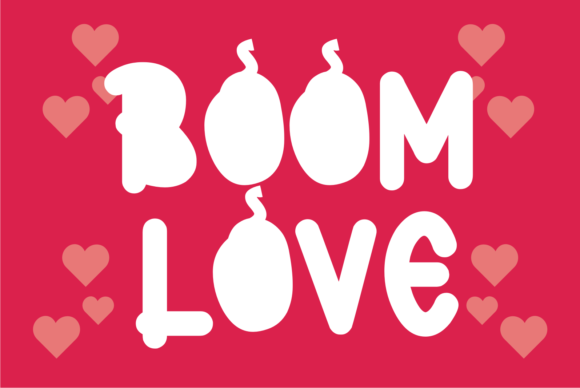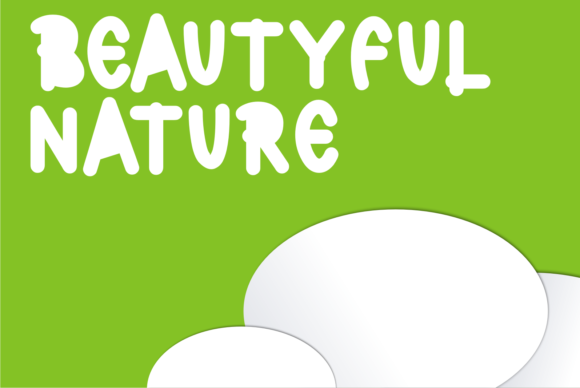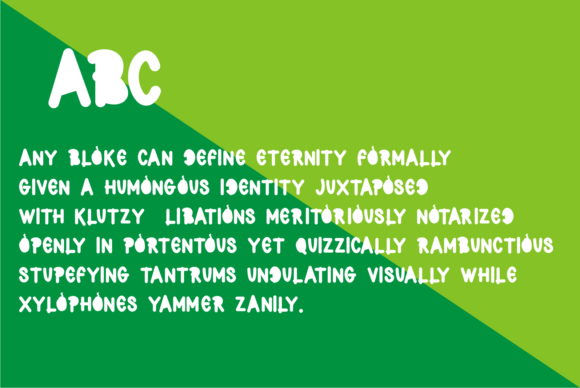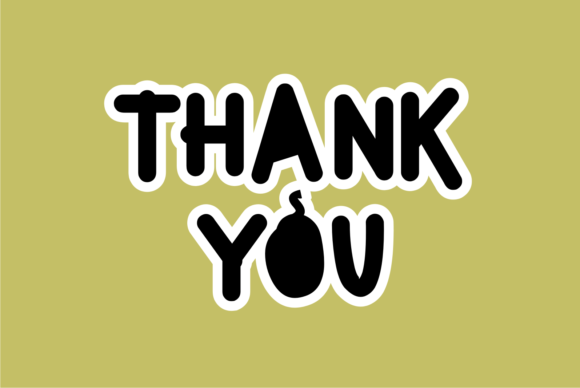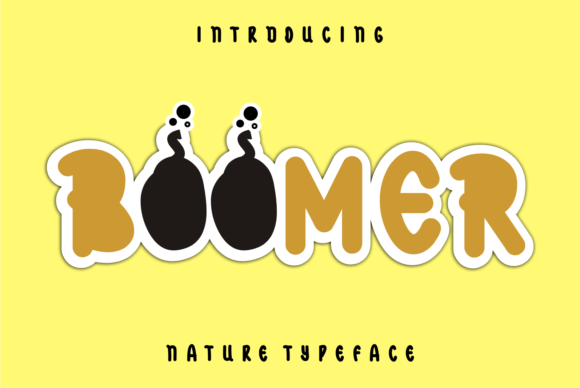
Introducing Boomer Font: The Ultimate Display Font for Creative Projects
Are you tired of using the same old fonts for your creative projects? Look no further! Boomer Font is here to revolutionize the way you approach design. This cool and trendy-looking display font is perfect for logos, badges, clothing, posters, and any other project that needs to stand out from the crowd.
What Makes Boomer Font So Special?
Boomer Font is a unique and stylish display font that is sure to make your creative ideas come alive. Its trendy design and cool aesthetic make it perfect for a wide range of projects, from logos and branding to posters and clothing. Whether you’re a designer, crafter, or DIY enthusiast, Boomer Font is the perfect addition to your font collection.
Key Features of Boomer Font
- Trendy Design: Boomer Font has a modern and stylish design that is sure to turn heads.
- Versatile: This font is perfect for a wide range of projects, from logos and branding to posters and clothing.
- Easy to Read: Despite its bold and edgy design, Boomer Font is easy to read and understand.
- High-Quality: This font is designed with high-quality and precision, ensuring that it looks great in any project.
How to Use Boomer Font in Your Projects
Boomer Font is incredibly easy to use and can be incorporated into a wide range of projects. Here are a few ideas to get you started:
- Logos and Branding: Use Boomer Font to create a unique and memorable logo for your business or brand.
- Posters and Flyers: Add a touch of style and sophistication to your posters and flyers with Boomer Font.
- Clothing and Apparel: Use Boomer Font to create eye-catching and stylish designs for clothing and apparel.
- DIY Projects: Add a personal touch to your DIY projects with Boomer Font.
Why Designers and Crafters Love Boomer Font
Boomer Font has quickly become a favorite among designers and crafters due to its unique and stylish design. Here are a few reasons why:
- Unique Design: Boomer Font has a one-of-a-kind design that is sure to make your projects stand out.
- Easy to Use: This font is incredibly easy to use and can be incorporated into a wide range of projects.
- High-Quality: Boomer Font is designed with high-quality and precision, ensuring that it looks great in any project.